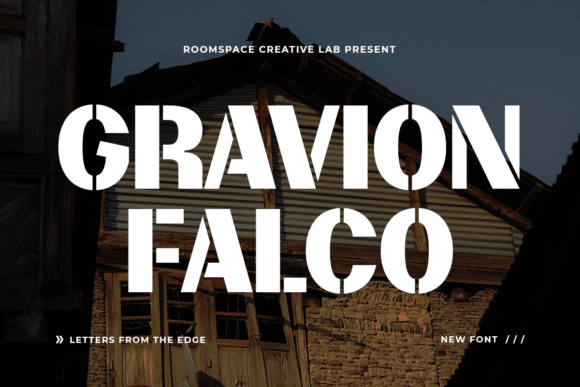
Introducing Gravion Falco Font: The Ultimate Bold and Sharp Stencil Sans Serif
In the realm of typography, fonts play a pivotal role in shaping the visual identity of a brand, product, or creative project. Among the myriad of fonts available, the Gravion Falco font stands out as a bold and sharp stencil sans serif font that seamlessly merges industrial strength with modern aesthetics. Designed to make a statement, Gravion Falco is ideal for a wide range of applications, including logo design, branding, packaging, posters, and editorial projects.
Design Characteristics of Gravion Falco
Gravion Falco boasts a distinctive design that sets it apart from other fonts. Its clean lines, geometric forms, and cutout details give it an industrial look that is both strong and modern. The stencil design adds a layer of ruggedness, making it perfect for projects that require a bold and edgy feel. The font’s geometric forms ensure that it remains versatile, allowing it to be used in various contexts without losing its impact.
Gravion Falco Font Example
Industrial Strength Meets Modern Aesthetics
The industrial strength of Gravion Falco is evident in its bold and sharp lines, which evoke a sense of ruggedness and resilience. However, this industrial feel is beautifully balanced with modern aesthetics, making the font suitable for a wide range of applications. Whether you’re designing a logo, creating a brand identity, or working on a packaging project, Gravion Falco ensures that your designs stand out while maintaining a strong, professional appeal.
The font’s modern aesthetics are characterized by its clean and geometric design, which gives it a fresh and contemporary look. This blend of industrial and modern elements makes Gravion Falco a versatile font that can be used in various creative projects.
Key Features of Gravion Falco Font
• Bold and Sharp Design: Gravion Falco features bold and sharp lines that make it perfect for creating striking designs.
• Stencil Sans Serif: The font’s stencil design adds a layer of ruggedness, making it ideal for industrial and edgy projects.
• Clean Lines and Geometric Forms: The font’s clean lines and geometric forms ensure that it remains versatile and easy to read.
• Cutout Details: The cutout details add a unique touch to the font, making it stand out from other stencil fonts.
• Industrial yet Modern: Gravion Falco seamlessly merges industrial strength with modern aesthetics, making it suitable for a wide range of applications.
Use Cases for Gravion Falco Font
Gravion Falco is an incredibly versatile font that can be used in various creative projects. Here are some of the key use cases for the font:
• Logo Design: The font’s bold and sharp design makes it perfect for creating striking logos that stand out.
• Branding: Gravion Falco can be used to create a strong and professional brand identity that resonates with your target audience.
• Packaging: The font’s industrial and modern design makes it ideal for packaging projects that require a bold and edgy feel.
• Posters: Gravion Falco can be used to create eye-catching posters that grab attention.
• Editorial Projects: The font’s clean and geometric design makes it suitable for editorial projects, such as magazines and newspapers.
Why Choose Gravion Falco Font?
There are several reasons why you should consider choosing Gravion Falco font for your next creative project:
• Unique Design: The font’s unique design sets it apart from other stencil fonts, making it perfect for projects that require a bold and edgy feel.
• Versatility: Gravion Falco is an incredibly versatile font that can be used in various contexts, from logo design to editorial projects.
• Professional Appeal: The font’s industrial and modern design ensures that your designs maintain a strong, professional appeal.
• Easy to Read: Despite its bold and sharp design, Gravion Falco remains easy to read, making it suitable for body text and headlines.
In conclusion, Gravion Falco font is a bold and sharp stencil sans serif font that seamlessly merges industrial strength with modern aesthetics. Its clean lines, geometric forms, and cutout details make it perfect for a wide range of applications, from logo design to editorial projects. With its unique design, versatility, and professional appeal, Gravion Falco is an excellent choice for any creative project that requires a bold and edgy feel.
Whether you’re a designer, brand owner, or creative professional, Gravion Falco font is an excellent addition to your typography arsenal. Its ability to make a statement while maintaining a strong, professional appeal makes it an ideal choice for projects that require a bold and modern design.